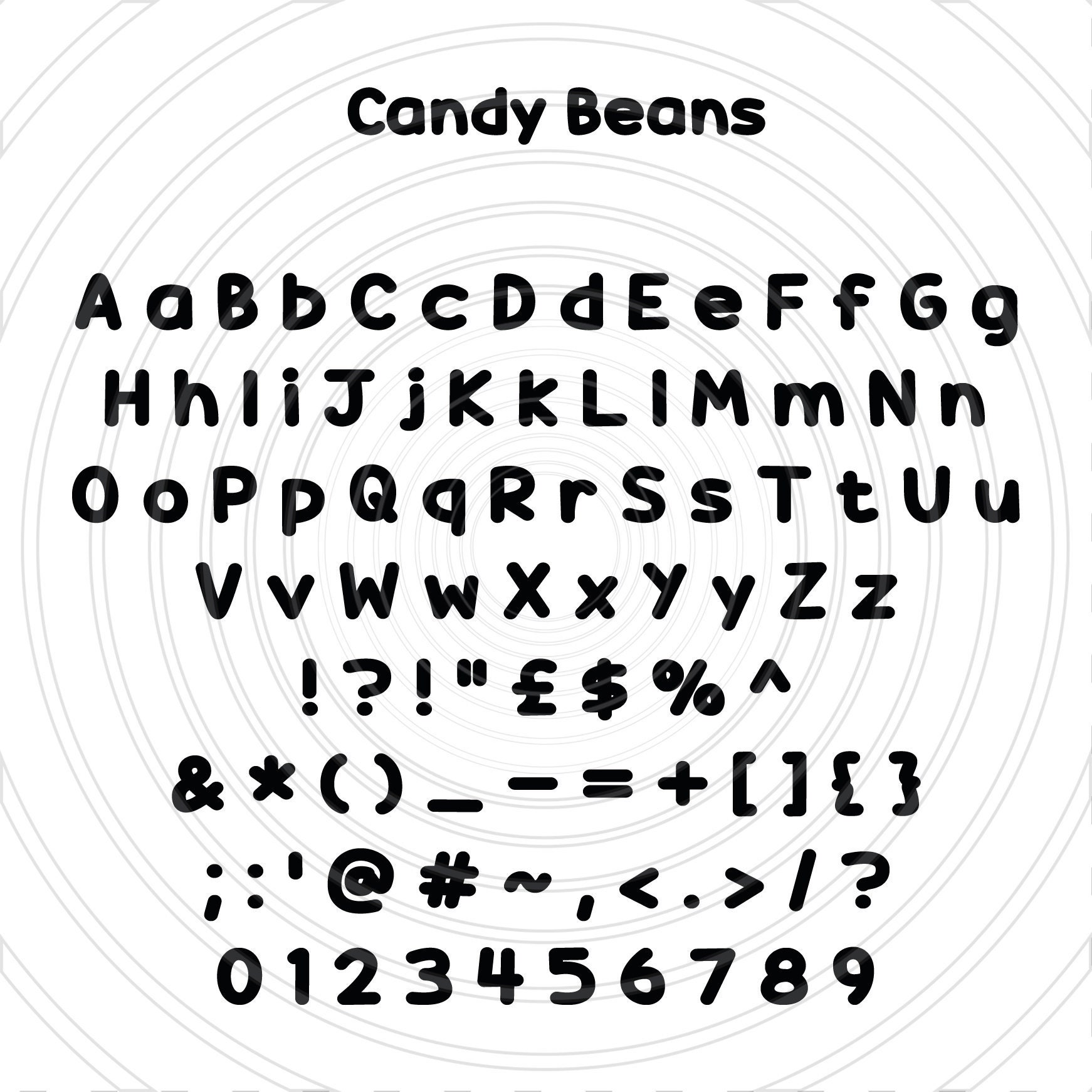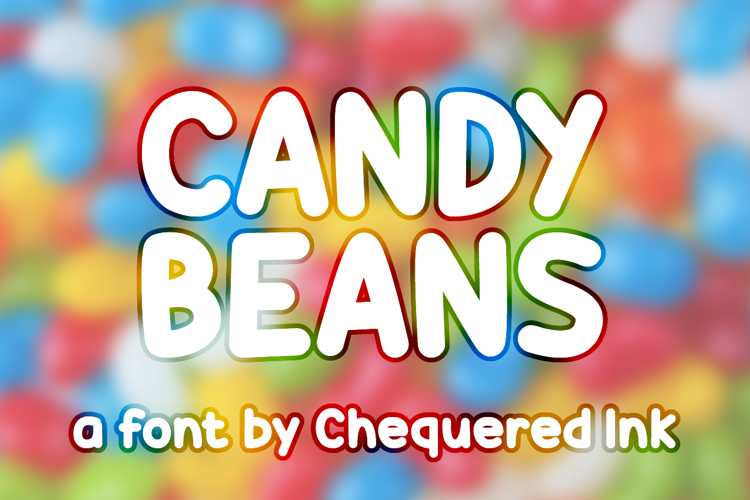
Candy Beans Font
Candy Beans Font - Candy beans is a fancy type font that can be used on any device such as pc, mac,. This playful and rounded font. Candy beans by a bold, rounded, and playful font with smooth curves. For commercial use, you need to buy a license. Candy beans font download is available free from fontget. Candy beans is a fancy cartoon font by chequered ink. It has 221 glyphs and is free for personal use.
It has 221 glyphs and is free for personal use. Candy beans is a fancy cartoon font by chequered ink. Candy beans is a fancy type font that can be used on any device such as pc, mac,. Candy beans by a bold, rounded, and playful font with smooth curves. For commercial use, you need to buy a license. This playful and rounded font. Candy beans font download is available free from fontget.
Candy beans by a bold, rounded, and playful font with smooth curves. This playful and rounded font. Candy beans is a fancy type font that can be used on any device such as pc, mac,. It has 221 glyphs and is free for personal use. Candy beans font download is available free from fontget. For commercial use, you need to buy a license. Candy beans is a fancy cartoon font by chequered ink.
Candy beans by a bold, rounded, and playful font with smooth curves. Candy beans is a fancy type font that can be used on any device such as pc, mac,. Candy beans font download is available free from fontget. Candy beans is a fancy cartoon font by chequered ink. For commercial use, you need to buy a license.
Candy beans is a fancy type font that can be used on any device such as pc, mac,. Candy beans is a fancy cartoon font by chequered ink. For commercial use, you need to buy a license. This playful and rounded font. It has 221 glyphs and is free for personal use.
It has 221 glyphs and is free for personal use. Candy beans by a bold, rounded, and playful font with smooth curves. This playful and rounded font. Candy beans is a fancy type font that can be used on any device such as pc, mac,. Candy beans is a fancy cartoon font by chequered ink.
Candy beans is a fancy type font that can be used on any device such as pc, mac,. Candy beans font download is available free from fontget. Candy beans is a fancy cartoon font by chequered ink. It has 221 glyphs and is free for personal use. This playful and rounded font.
Candy beans is a fancy type font that can be used on any device such as pc, mac,. This playful and rounded font. Candy beans is a fancy cartoon font by chequered ink. It has 221 glyphs and is free for personal use. For commercial use, you need to buy a license.
Candy beans is a fancy cartoon font by chequered ink. This playful and rounded font. Candy beans by a bold, rounded, and playful font with smooth curves. It has 221 glyphs and is free for personal use. For commercial use, you need to buy a license.
Candy beans is a fancy cartoon font by chequered ink. It has 221 glyphs and is free for personal use. For commercial use, you need to buy a license. Candy beans font download is available free from fontget. Candy beans is a fancy type font that can be used on any device such as pc, mac,.
It has 221 glyphs and is free for personal use. Candy beans font download is available free from fontget. Candy beans is a fancy type font that can be used on any device such as pc, mac,. For commercial use, you need to buy a license. Candy beans is a fancy cartoon font by chequered ink.
This playful and rounded font. Candy beans is a fancy cartoon font by chequered ink. For commercial use, you need to buy a license. Candy beans font download is available free from fontget. Candy beans by a bold, rounded, and playful font with smooth curves.
Candy beans is a fancy cartoon font by chequered ink. Candy beans by a bold, rounded, and playful font with smooth curves. It has 221 glyphs and is free for personal use. Candy beans font download is available free from fontget.
This playful and rounded font.